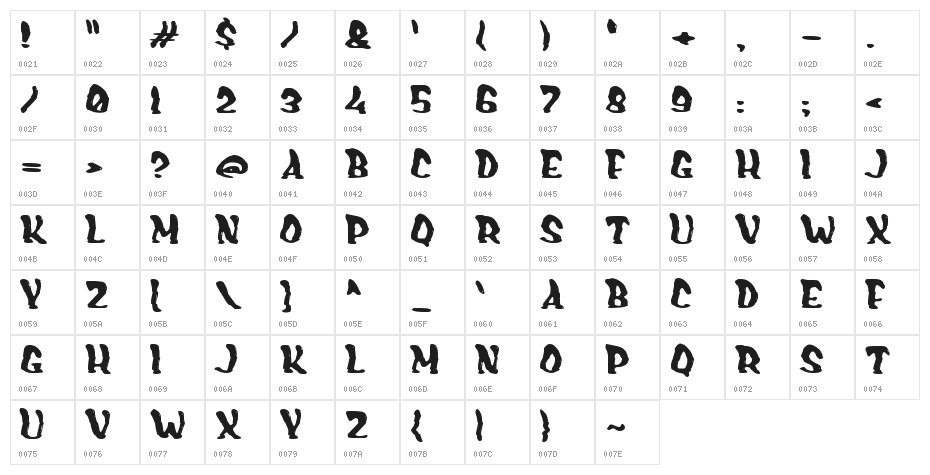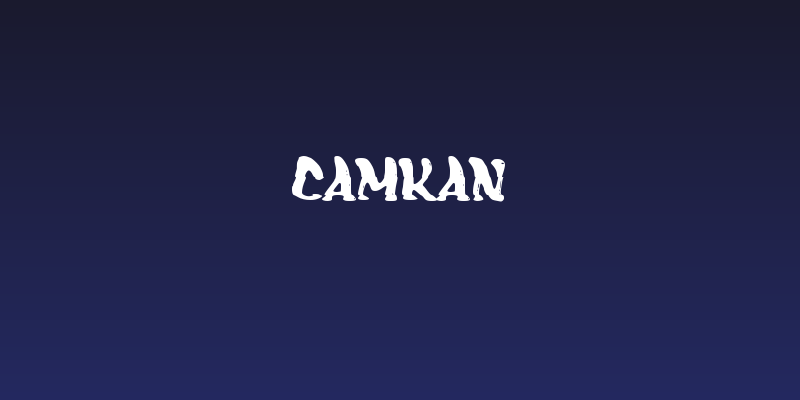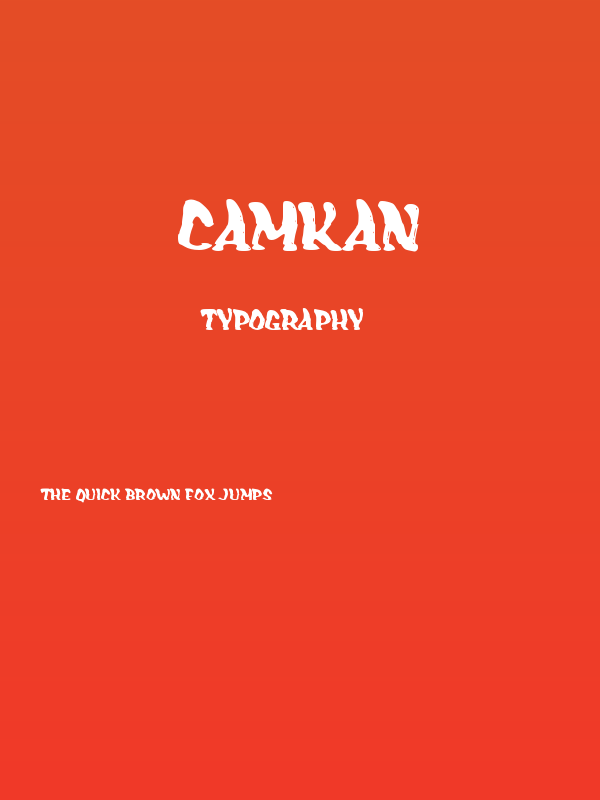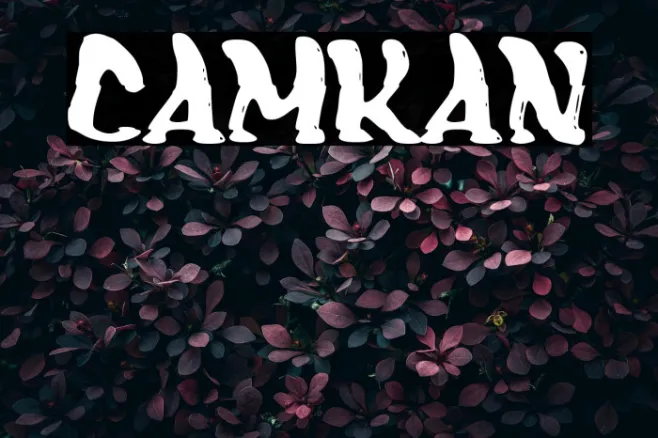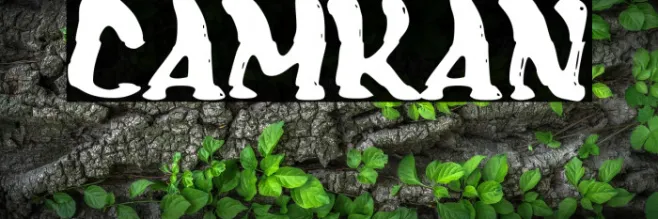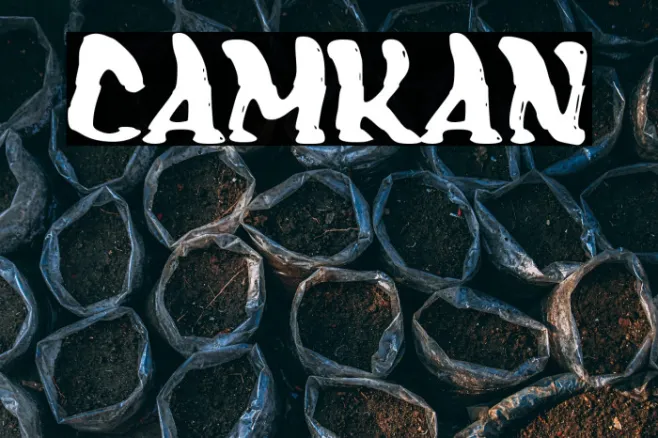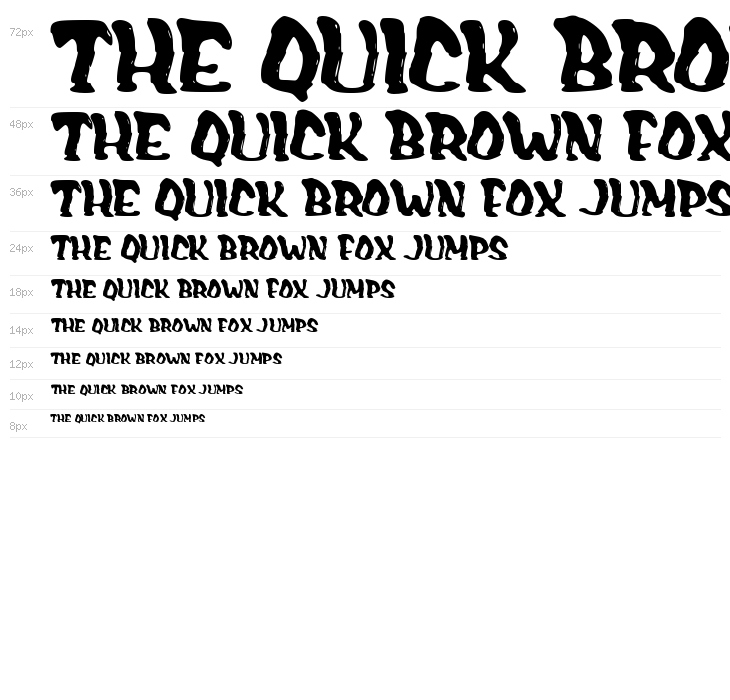
Camkan Font
Camkan Description
This font features a bold and dynamic style with a hand-painted appearance, characterized by its irregular and organic letterforms. The strokes are thick and uneven, giving it a raw and expressive feel. The uppercase and lowercase letters maintain a consistent style, while the numbers and special characters complement the overall aesthetic. This font's unique and artistic design makes it stand out, offering a sense of movement and energy. The characters are closely spaced, enhancing its bold presence and making it suitable for impactful visual statements.
CAMKAN UPPERCASE
CAMKAN LOWERCASE
CAMKAN OTHER CHARS
| Proposed Projects | Ideal for posters, album covers, artistic branding, and creative advertising campaigns. |